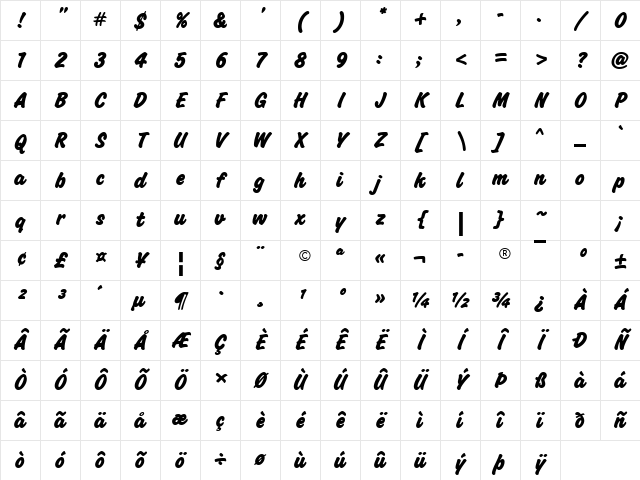
Challenge Extra Bold Regular
Challenge Extra Bold Family
Design Context for Challenge Extra Bold
Challenge Extra Bold is a composed and adaptable typeface that performs quietly and consistently across a wide range of design contexts. Its bold stroke weight gives it real presence on the page.